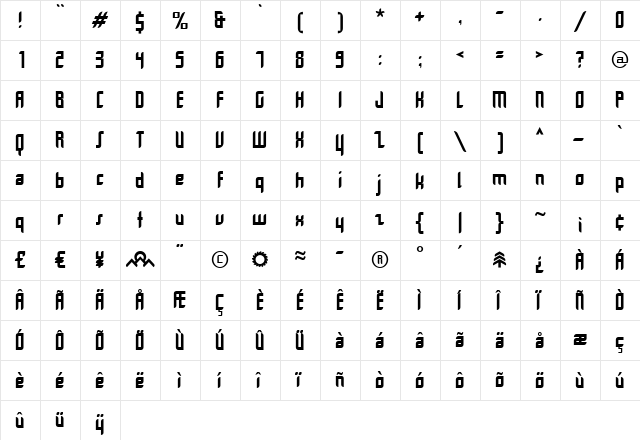
Dimentia Thin Font Preview
Dimentia Thin
Design Context for Dimentia Typeface
Dimentia takes a measured approach to typography — its balanced proportions and neutral character make it a reliable workhorse for both digital and print work. Its slender proportions lend an understated elegance to any composition.